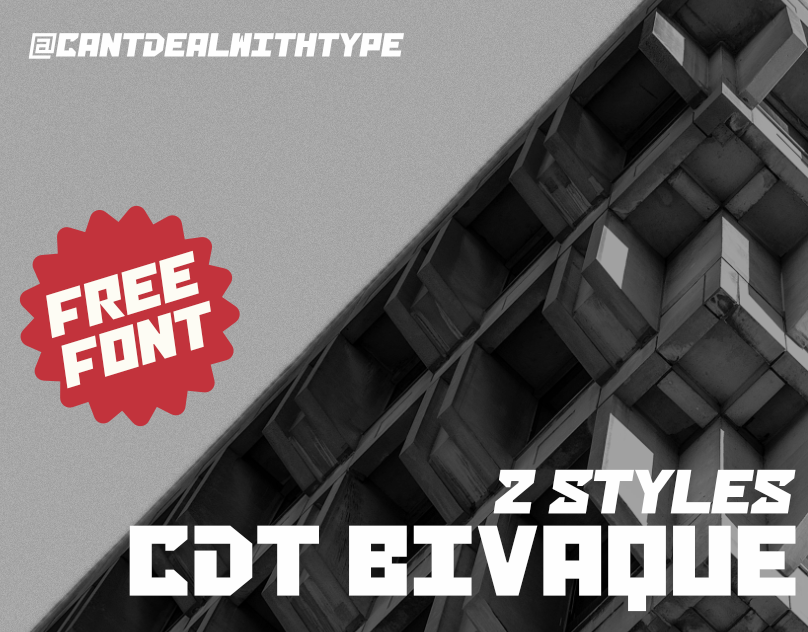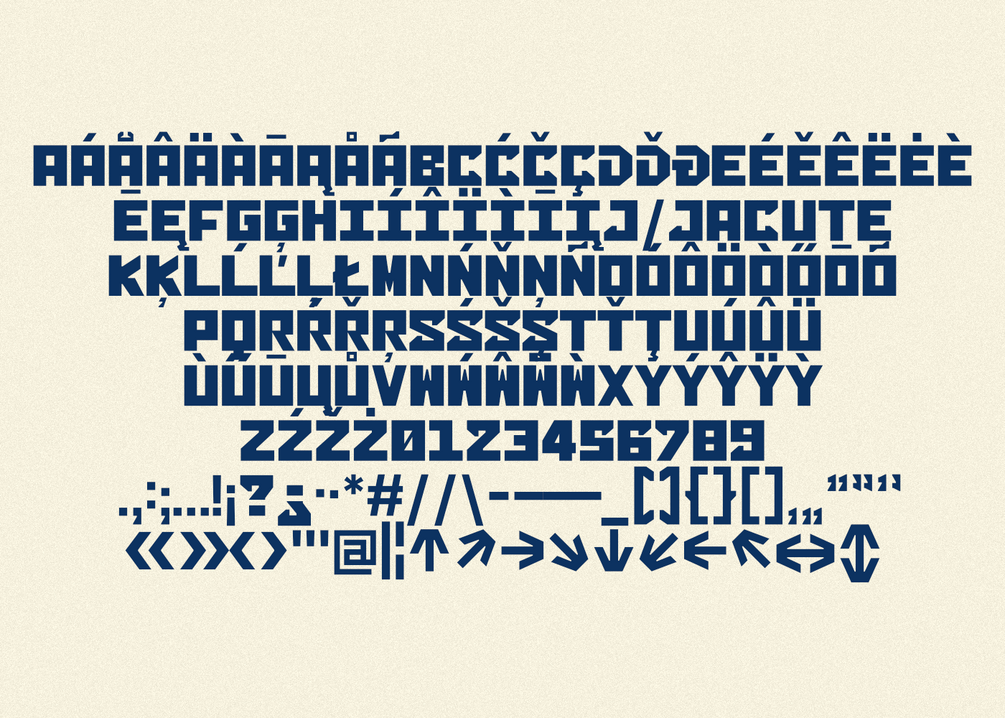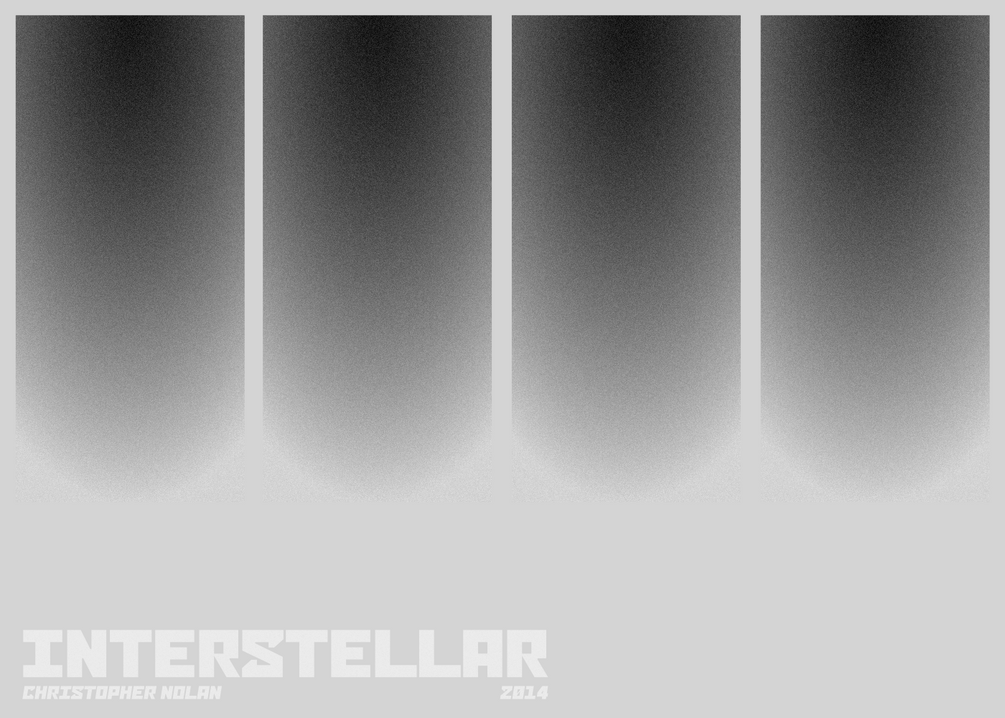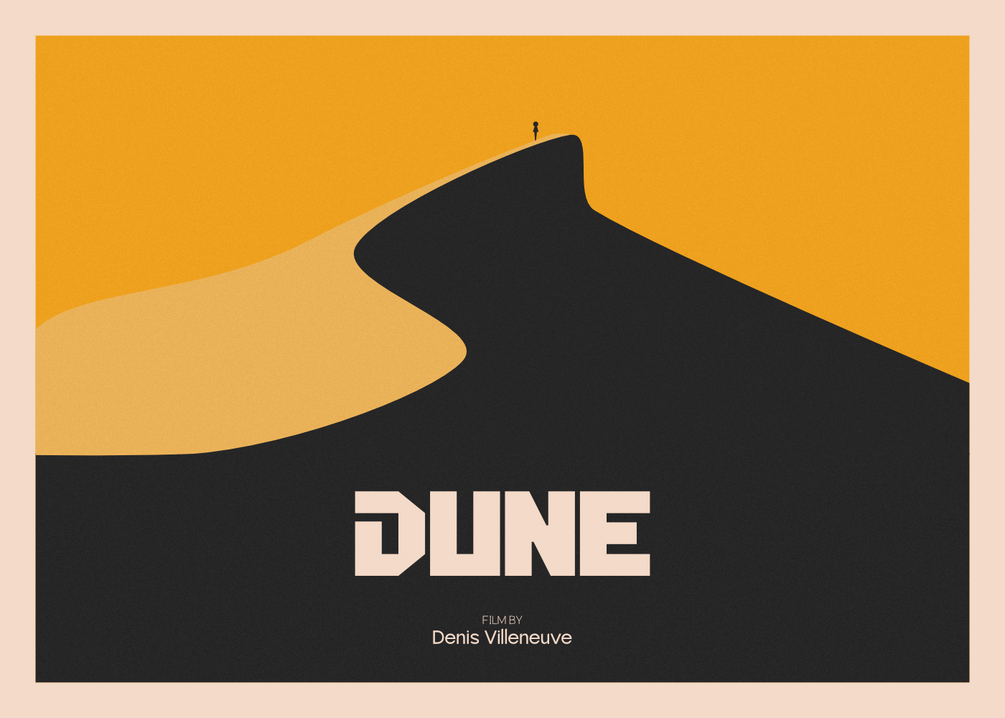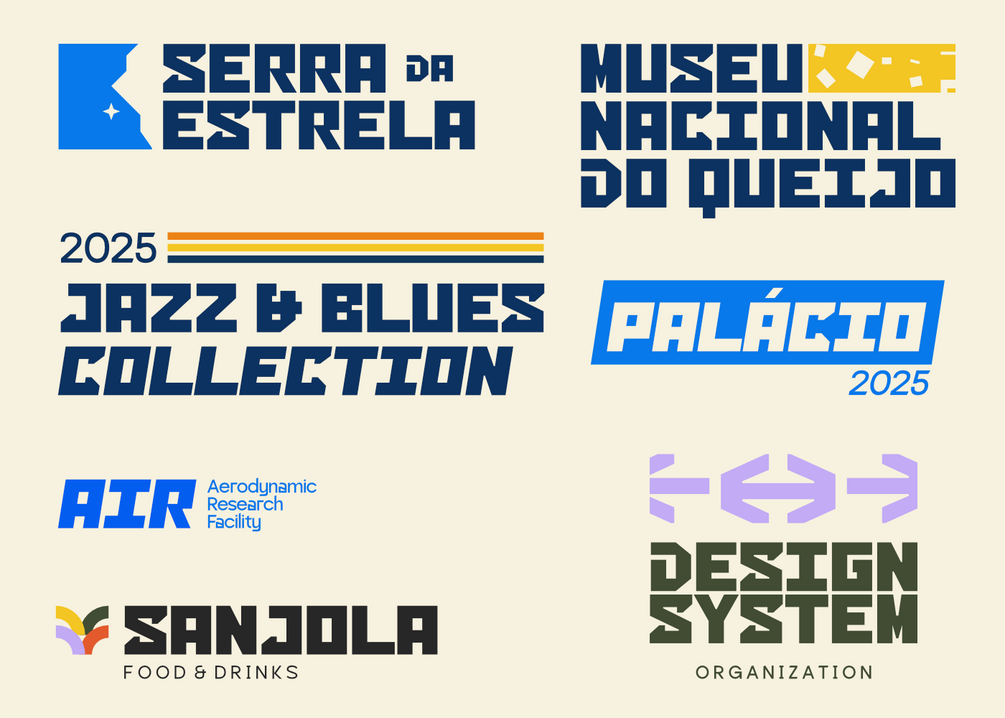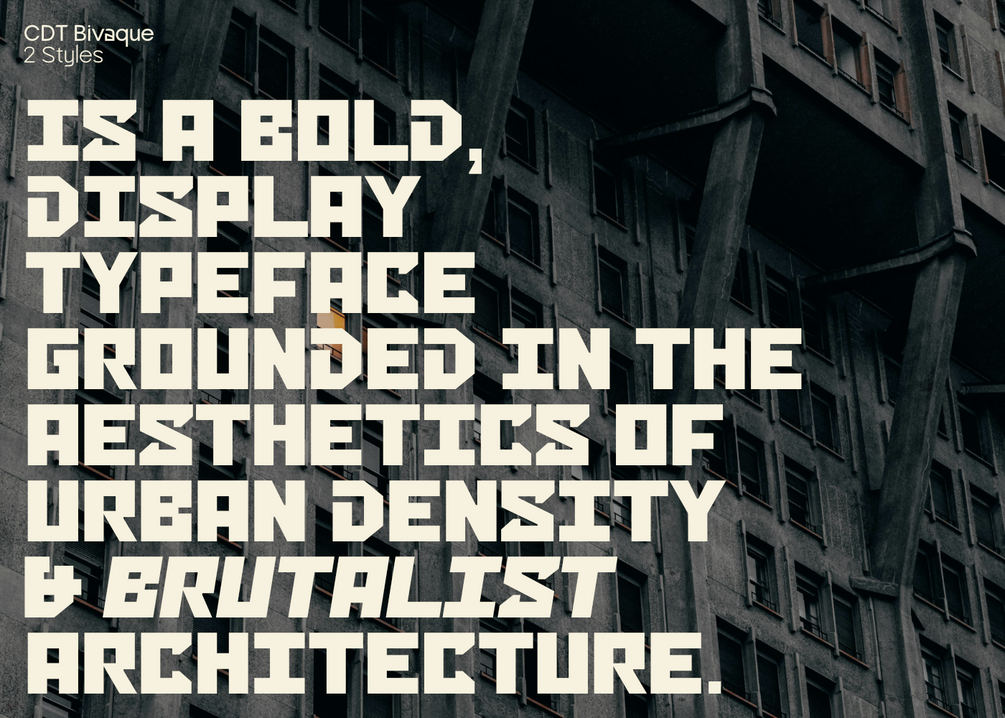
CDT Bivaque - Free Font
CDT Bivaque is a bold, display typeface grounded in the aesthetics of urban density & brutalist architecture.
With a blocky and quirky baseline through geometric forms, this typeface is perfect for big headlines and high impact graphics.